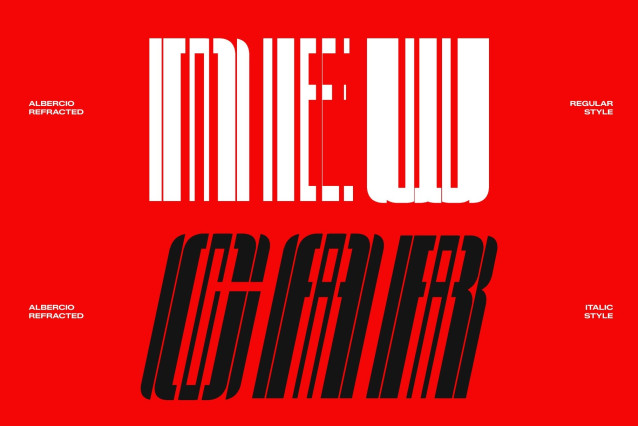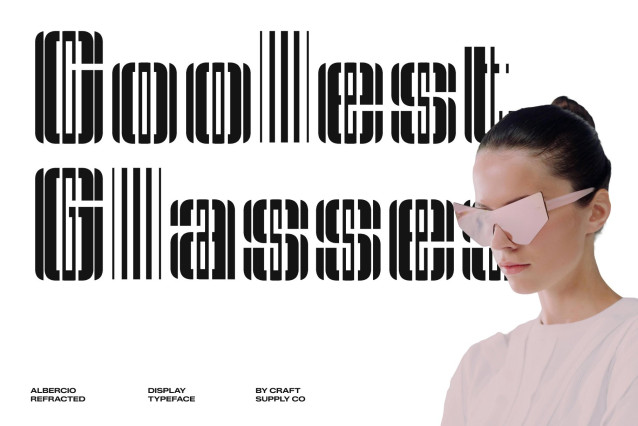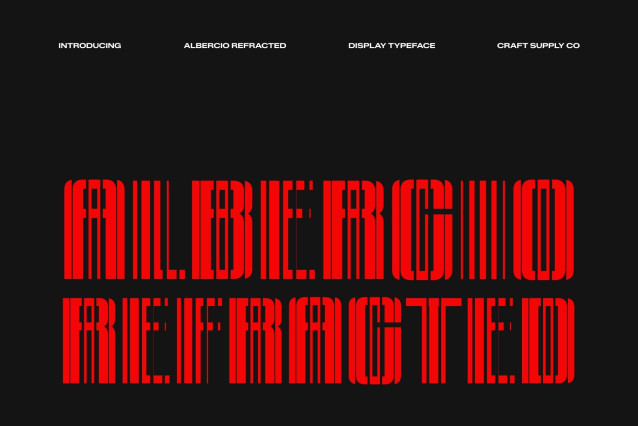
Albercio Refracted Font
Albercio Refracted – Condensed Sans Serif Font: Where Compact Strength Meets Futuristic Refraction
Bold Narrow Forms with Clean Modern Precision
This is a condensed sans serif font designed to deliver powerful visual impact in tight spaces. Its narrow proportions and bold structure create a sleek and commanding appearance while maintaining excellent readability. The clean contemporary forms give the font a professional and modern personality, making it ideal for strong display compositions and space-efficient layouts.
Refracted Effect with Futuristic Visual Energy
This font features fragmented cuts, sliced geometric details, and dynamic line interruptions that create a futuristic digital atmosphere. These refracted elements mimic reflected light and technological interference, adding movement, depth, and experimental edge while preserving the font’s elegant and clean foundation.